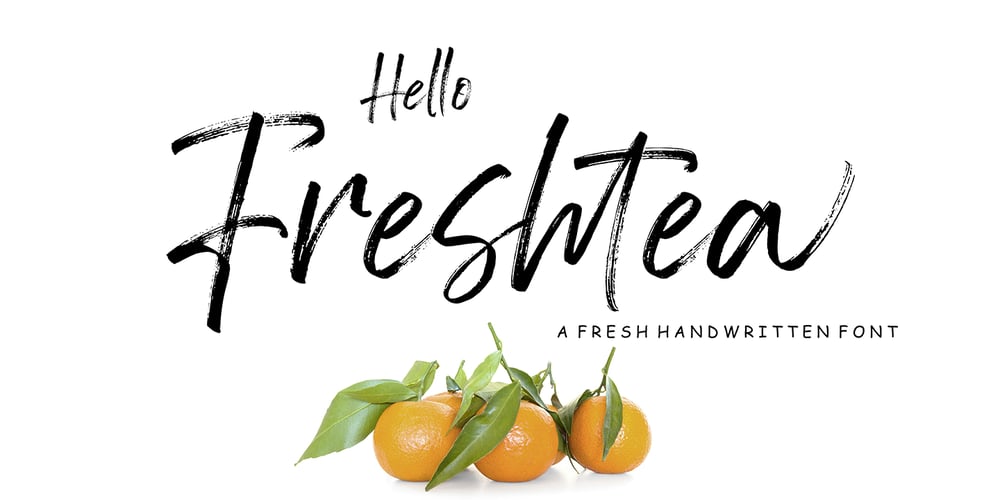
Hello Freshtea Brush Font Family was designed by Muhammad Fajar and published by Lucky Type. Hello Freshtea Brush contains 1 styles and family package options. Hello Freshtea is a rough brush and fresh handwritten script font with an irregular baseline and dramatic movement. This font is great for your next creative project such for use with logos, printed quotes, invitations, cards, product packaging, headers, logotype, letterheads, posters, apparel design, labels, and more. Hello Freshtea is complete with uppercase and lowercase letters, as well as multi-language support, numbers, punctuation. also provide some ligatures. Mail Support: If you have any question, please contact.